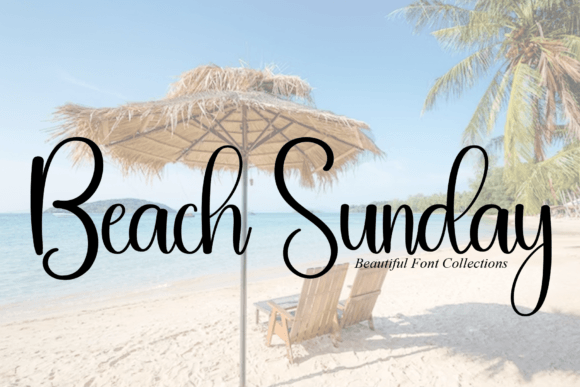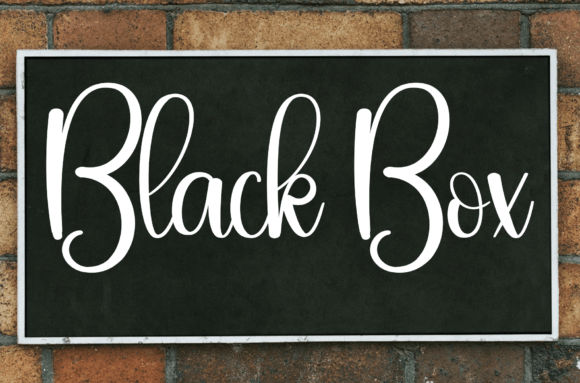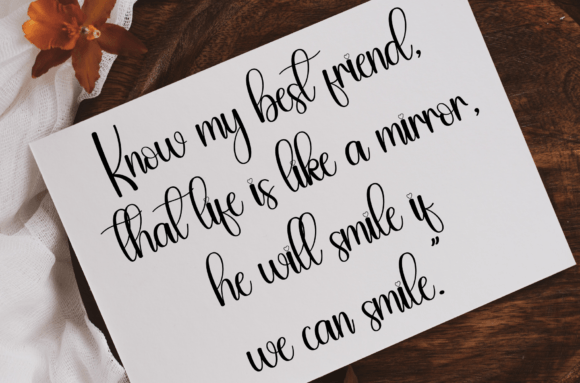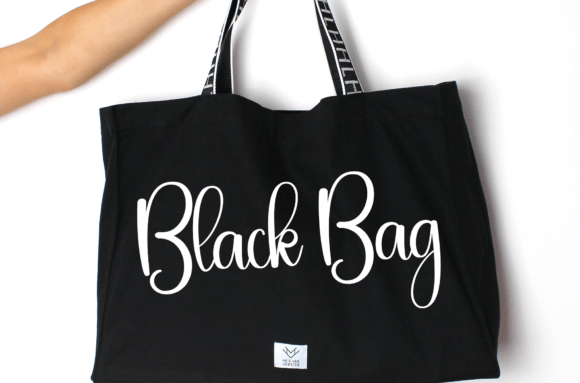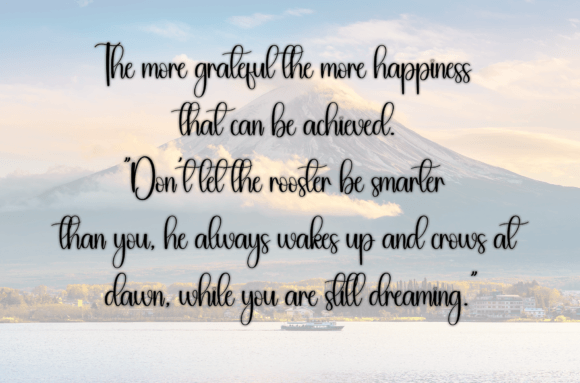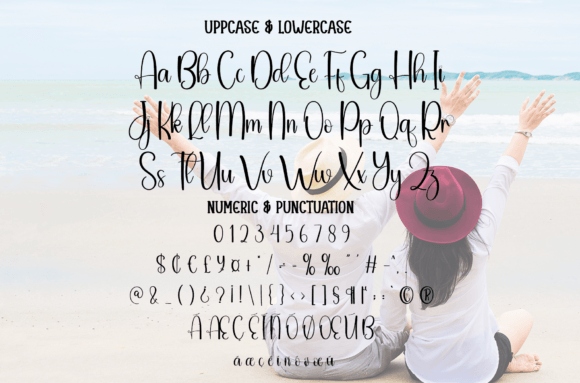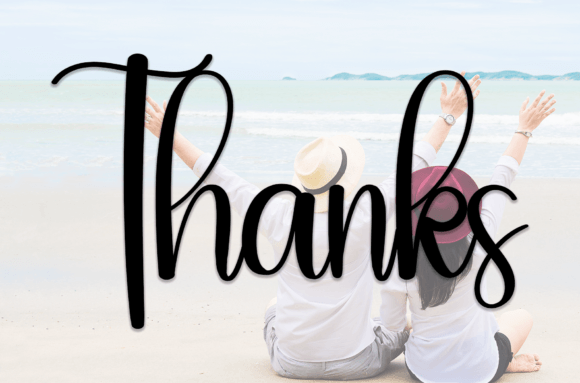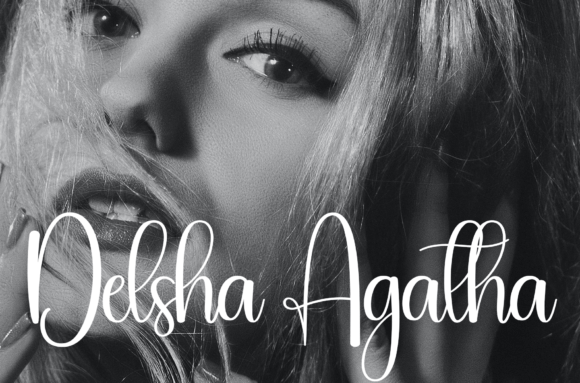
Beach Sunday
About Beach Sunday
this is a sweet and friendly handwritten display font. Cute and fun, this font is ideal for writing wedding invitations, cards, or any other design that might need a fun touch!